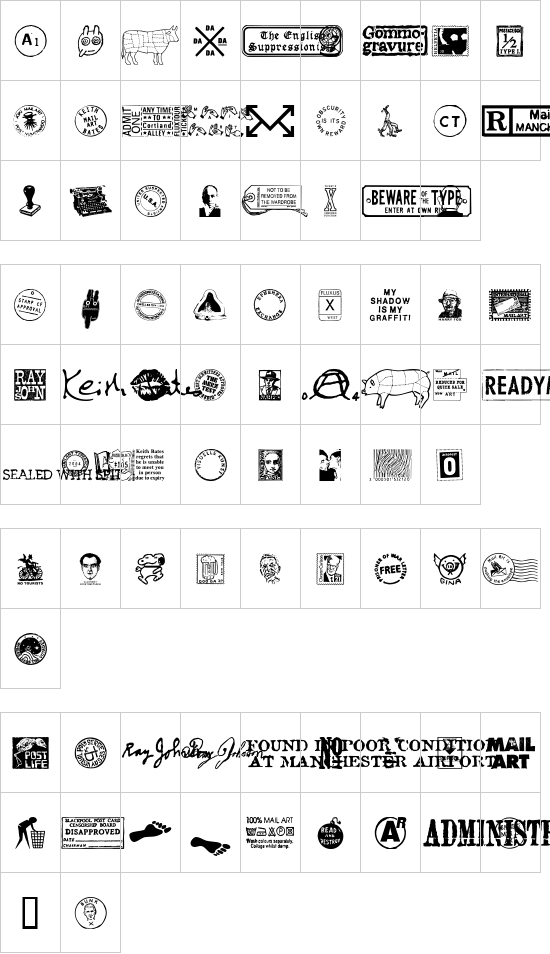
MA
About MA
MA is a dingbat font built from decorative symbols and picture glyphs rather than standard letters, offering a set of ornamental marks across the keyboard. Each key produces a graphic element instead of a character, making it a kit of ready-made decorations.